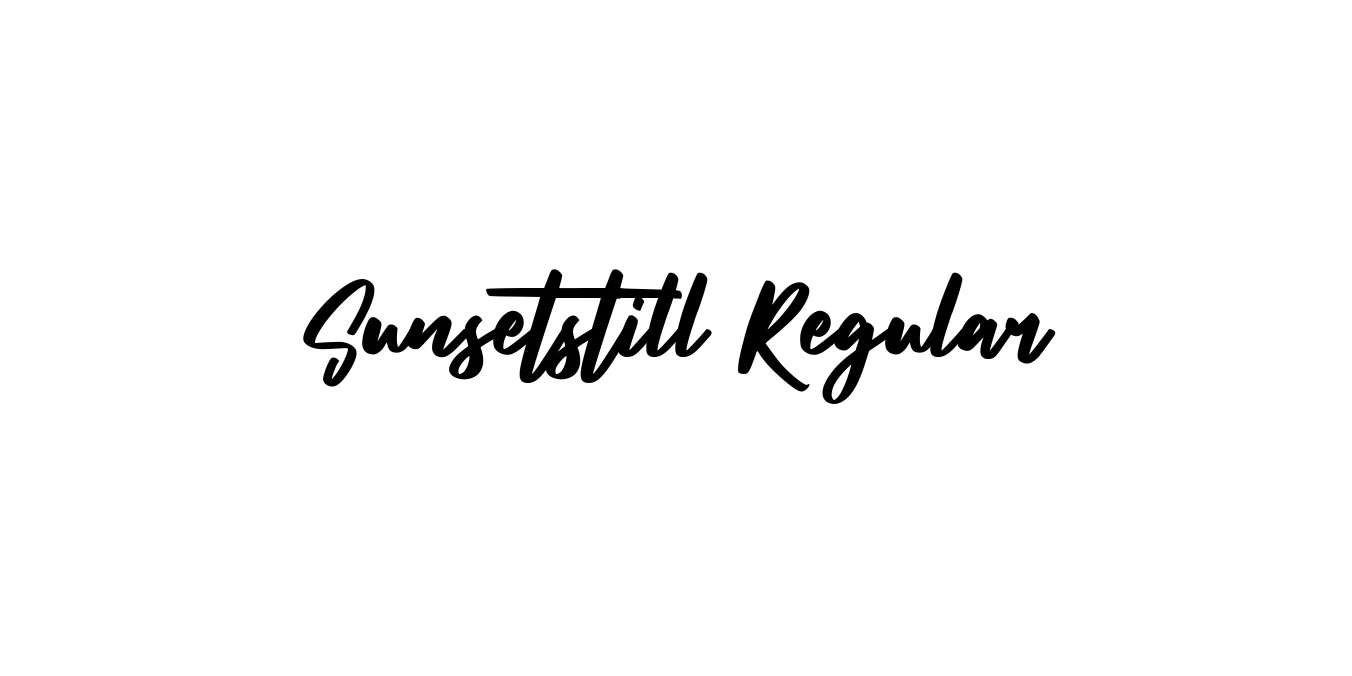
Sunsetstill Regular
Sunsetstill Regular is a modern and stylish script typeface designed to evoke a sense of warmth and natural elegance. It features fluid, hand-drawn strokes that mimic the appearance of real brush calligraphy, making it an excellent choice for projects requiring a personal touch. The font's rhythmic flow and subtle texture provide a sophisticated aesthetic that stands out in contemporary design layouts.
Created by the renowned Letterhend Studio, this font includes a comprehensive set of characters, including stylistic alternates and ligatures. This versatility allows designers to create unique typographic compositions for branding, editorial work, and social media graphics. Its balanced proportions ensure legibility even at smaller sizes, while its bold personality shines in large-scale display applications.
Sunsetstill Regular Best Uses
Creating unique logos and memorable visual identities.
Designing elegant wedding stationery and high-end event cards.
Crafting eye-catching quotes and engaging digital storytelling content.
Designing trendy graphics for t-shirts and custom fashion merchandise.